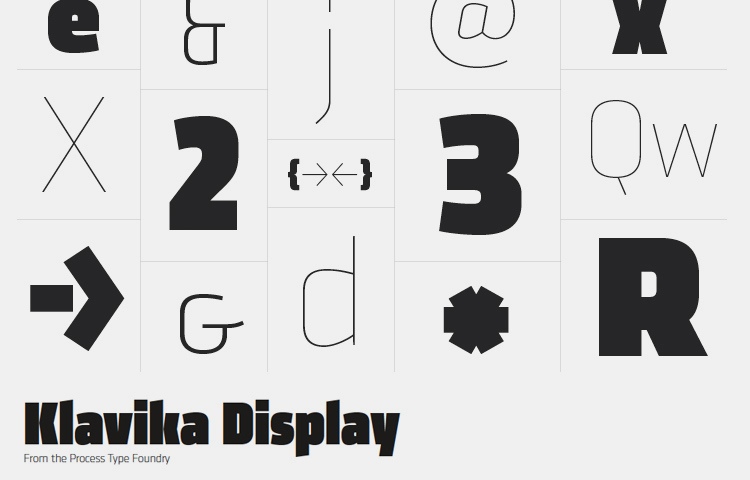
Klavika Display Font
Klavika Display Font is perfect for luxury brand headlines, fashion magazine covers, high-end advertising campaigns, premium product packaging, sophisticated web headers, architectural signage, art gallery exhibitions, upscale restaurant menus, exclusive event invitations, and editorial design projects.
Klavika Display Font is exciting because it represents the pinnacle of contemporary typographic sophistication, combining geometric precision with subtle humanist touches to create a typeface that commands attention while maintaining elegant restraint. This font brings premium quality and design excellence to any project, making it ideal for luxury brands and high-end applications that demand nothing less than typographic perfection. Its distinctive character and refined details create an immediate sense of exclusivity and superior craftsmanship.
Klavika Display Font family includes thin, light, regular, medium, bold, and black weights, each available in roman and italic styles, providing designers with extensive flexibility for creating sophisticated hierarchical systems and premium brand experiences.
This exceptional display typeface merges modernist design principles with contemporary luxury aesthetics, making Klavika Display Font Free Download a premium choice for discerning design professionals. The font's meticulously crafted letterforms feature subtle optical adjustments and refined proportions that ensure stunning visual impact at large sizes while maintaining character integrity.
Whether you're designing luxury fashion campaigns, premium architectural projects, or exclusive brand identity systems, Klavika Display Font delivers unparalleled elegance and visual authority. The font excels particularly in large-scale applications where its sophisticated details and commanding presence can be fully appreciated by discerning audiences.
Design professionals prize Klavika Display Font for its ability to elevate any project with instant sophistication while providing the versatility needed for complex luxury brand systems. The font's premium character makes it the preferred choice for high-end retail, luxury hospitality, and exclusive cultural institutions.
Each character demonstrates masterful attention to detail, featuring precisely balanced curves and elegant proportions that create harmonious typography worthy of the most prestigious applications.